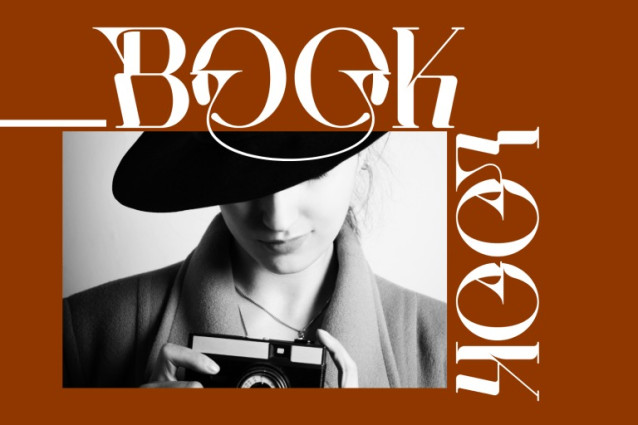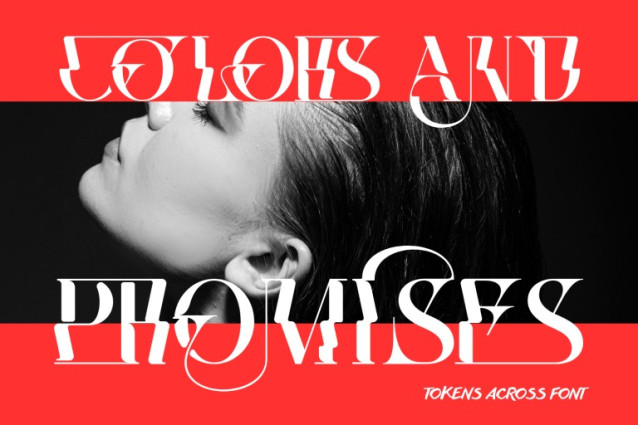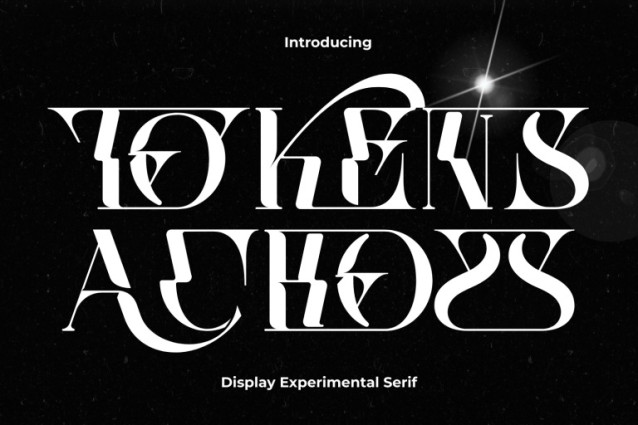
Tokens Across Font
TOKENS ACROSS FONT – A Modern Decorative Serif Display Font, is a striking high-contrast serif display font that merges elegance with abstract artistry. Its letterforms feature refined strokes, sharp serifs, and bold experimental cuts, creating a visually captivating rhythm on every line of text. The interplay between thick and thin strokes, along with geometric-inspired details, makes this typeface both sophisticated and edgy. Perfect for fashion branding, editorial headlines, luxury packaging, posters, music artwork, and modern creative campaigns, TOKENS ACROSS offers designers a typeface that commands attention with artistic flair.
🔤Font Features:
Uppercase & Lowercase Letters
~100 Special Ligatures
Accented Characters for Multilingual Support
🔤About 100 ligatures combined with Stylistic Alternates Font:
AC AD AL AN AR AS AT AU AV BE CA CE CH CO CT DE DI EA EC ED EE EL EM EN EP ER ES ET FE FO FR GE HA HE HI HO IE IC IL IN IO IR IS IT JU KE LA LE LI LL LO LY MA ME MI NC ND NE NG NO NT NS OC OF OM ON OO OP OR OT OU OW PA PR RA RD RE RI RO RS RT SE SH SI SO SS ST TA TE TH TI TO TR TT UM UN UR VE WI WO